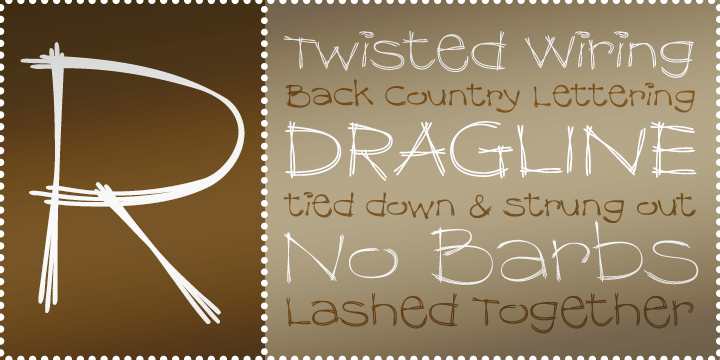
Dragline BTN
About Dragline BTN
Dragline is a wild and playful typeface with variants built up of multiple overlapping and criss-crossing lines making up each letter. A bit reminiscent of barbed wire or letters whittled by knife, it is still very bouncy and playful. Highly readable…